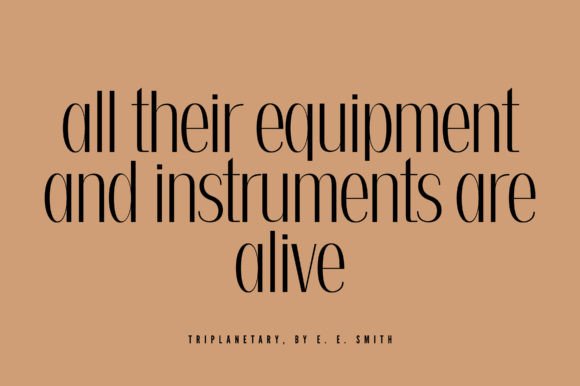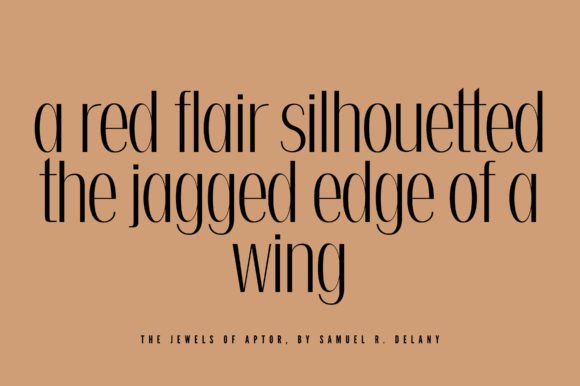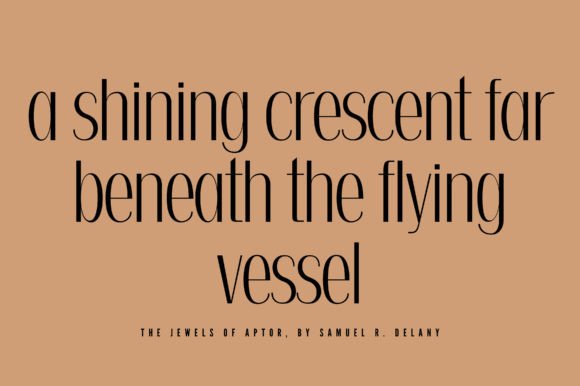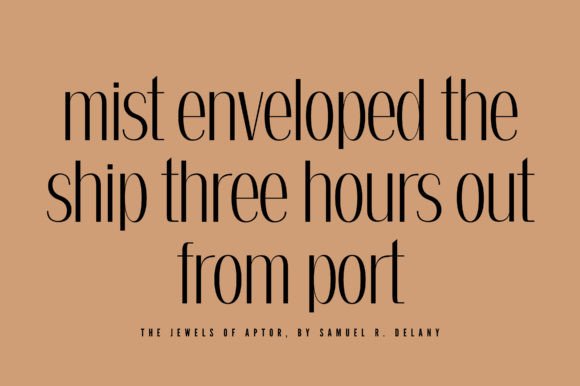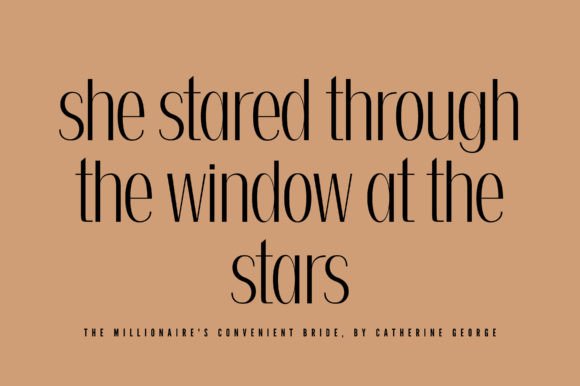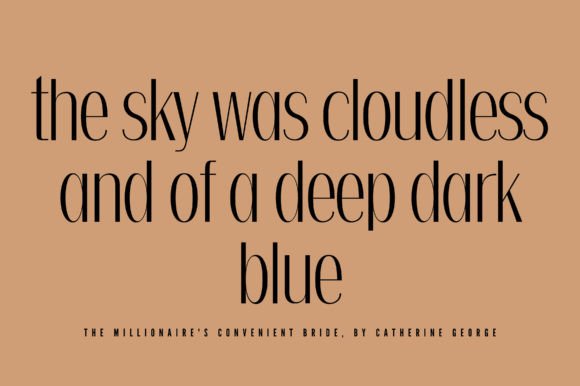
Introduction to Nurina Font
Do you remember that moment when you finally nailed the design for your client’s logo, and it all came together in perfect harmony? The rush of excitement, the sense of accomplishment – it’s a feeling that never gets old. As designers, we strive to create work that not only meets but exceeds expectations. And that’s where the Nurina Font comes in – a modern, delicate sans-serif typeface that embodies the essence of minimalism.
With its clean lines and subtle curves, Nurina Font brings sophistication to any design, from logos to packaging. Its high-quality character set is perfect for designers who want to add a touch of elegance to their creative projects. Whether you’re working on a free download or a commercial project, Nurina Font is an invaluable design resource that can help you achieve a transparent background and a contemporary edge.
As a valuable addition to any designer’s toolkit, Nurina Font is a game-changer for those who want to elevate their designs to the next level. Its versatility and ease of use make it an ideal choice for creative projects, and its high-quality output ensures that your designs look professional and polished.
Key Features of Nurina Font
- High-quality design: Nurina Font is a beautifully crafted font, perfect for creative projects that require a touch of elegance and sophistication.
- Unique characteristics: The font’s unique blend of modern and vintage elements makes it an excellent choice for designers looking to add a touch of personality to their creative projects.
- Perfect for creative projects: Nurina Font is ideal for use in creative projects, such as branding, packaging, and advertising, where a high-quality and unique font is essential.
Honest Review: Nurina Font
What I love about the Nurina Font is its versatility. It’s perfect for a variety of design applications, from headings to body text. The font’s clean and modern design makes it an excellent choice for any project that requires a professional look. Plus, it features a transparent background, allowing you to easily layer it over images or other design elements.
- May not be suitable for extremely formal or traditional designs
- Some users may find the font too modern or trendy
Overall, I’m really impressed with the Nurina Font. It’s a great design resource that’s perfect for creative projects. While it may not be the best fit for every design application, it’s definitely worth adding to your library.